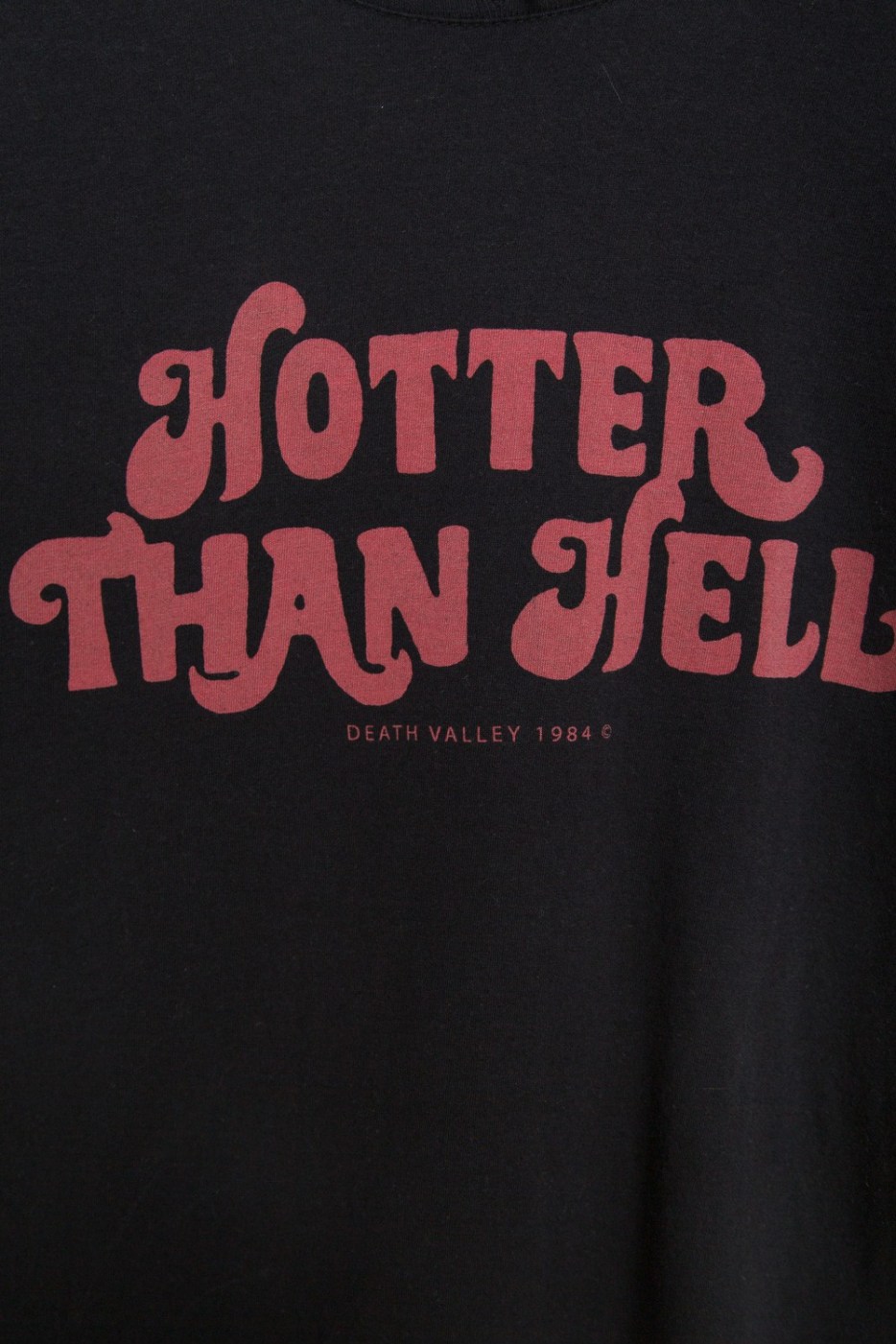
Please help me finding this font of this shirt
Please help me identify this font. I found it at a t-shirt!
I have found one similar, but not the same, named NeptunCAT.ttf . Don't know if this one is lettering or font...
I really do not know where that 1984 come from. But the shirt is not from back then.
If you search for "Hotter than Hell shirt" on google images you will find a lot of other shirts with this printed on.
But searching on google I can't find the source of that font (if it is a font).
And they look differently in the details. So I guess it’s (rather badly) redrawn from the original (from the 1980s or earlier). I wouldn’t expect there is a font today to typeset this. There are “flower power” fonts like this around of course.
That's a good point! I think you are right! I've been searching for this "font" for some days but can't find anything. I think you are right, this is not a font but a lettering! Guess I will have to try my photoshop skills :)